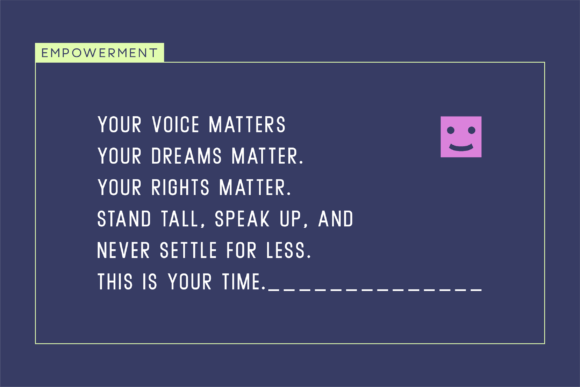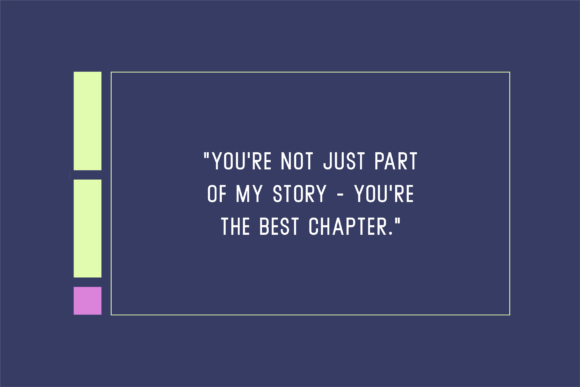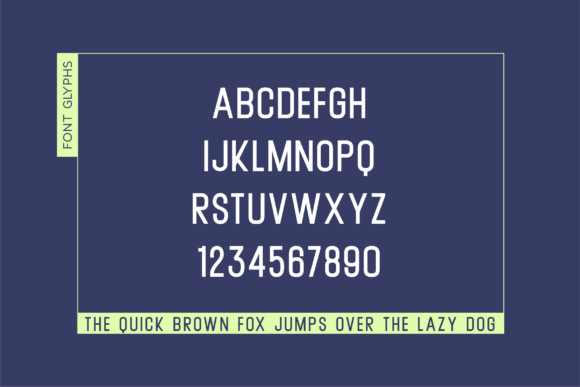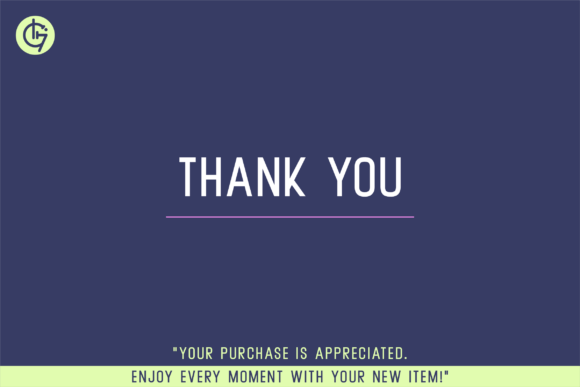
Introducing Goldenlune – A Modern Sans Serif Typeface
In the world of typography, a well-designed font can make all the difference in the success of a project. For designers and crafters looking for a bold and modern sans serif typeface, Goldenlune is an excellent choice. This all-caps font is designed to exude strength and authority, making it perfect for projects that require a sense of professionalism and impact.
Clean Lines and Minimalist Aesthetic
Goldenlune boasts clean lines and a minimalist aesthetic that gives it a sharp, crisp edge. The font’s geometric structure ensures versatility, making it suitable for a wide range of applications, from digital interfaces to high-end branding. The all-caps design emphasizes clarity and readability, making it ideal for headlines, posters, and anywhere you need your message to stand out.
Key Features of Goldenlune
- All-caps design for maximum impact and emphasis on clarity and readability
- Modern, minimalist style with a focus on readability and clean lines
- Bold, clean lines for a confident and professional look
- Ideal for branding, logos, packaging, and digital design
- Perfect for both large-scale headlines and smaller text blocks
Why Choose Goldenlune?
Goldenlune is perfect for brands, agencies, and designers looking for a font that makes a statement. Its strong, geometric structure and clean lines ensure that your message is conveyed with confidence and professionalism. Whether you’re designing a logo, website, or print material, Goldenlune is an excellent choice.
Applications of Goldenlune
The versatility of Goldenlune makes it suitable for a wide range of applications, including:
- Branding: Create a strong and professional brand identity with Goldenlune
- Logos: Design a bold and impactful logo that makes a statement
- Packaging: Use Goldenlune for packaging design that stands out on store shelves
- Digital Design: Perfect for digital interfaces, websites, and mobile apps
- Print Material: Use Goldenlune for brochures, posters, and other print materials
Tips for Using Goldenlune
To get the most out of Goldenlune, here are some tips:
- Use it for headlines: Goldenlune is perfect for large-scale headlines and titles
- Experiment with colors: Try out different colors to find the perfect match for your brand
- Mix and match: Combine Goldenlune with other fonts to create a unique look
- Pay attention to spacing: Make sure to leave enough space between letters and lines to ensure readability
In conclusion, Goldenlune is a modern sans serif typeface that is perfect for designers and crafters looking for a bold and professional font. Its clean lines, minimalist aesthetic, and strong geometric structure make it suitable for a wide range of applications. With its all-caps design and focus on readability, Goldenlune is ideal for headlines, posters, and anywhere you need your message to stand out.
Get Ready to Elevate Your Designs with Goldenlune
Whether you’re a seasoned designer or just starting out, Goldenlune is an excellent addition to your font library. With its versatility, readability, and professional look, Goldenlune is sure to elevate your designs and make a lasting impression.